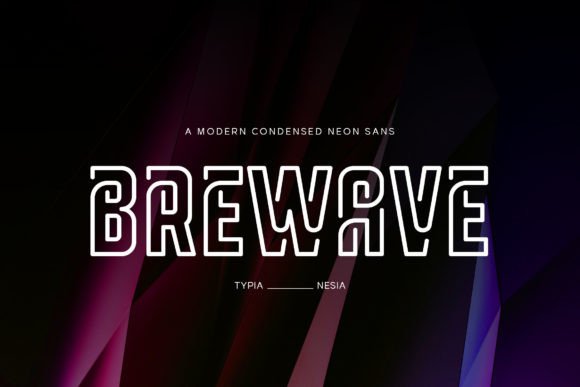
Brewave Font: The Ultimate Techno Outline Font for Modern Design
In the world of digital design, fonts play a crucial role in conveying the tone and personality of a brand or project. With so many fonts available, it can be overwhelming to choose the right one. However, if you’re looking for a font that exudes a futuristic and high-tech vibe, look no further than Brewave Neon. In this article, we’ll explore the features and benefits of Brewave Font and how it can elevate your design projects.
What is Brewave Font?
Brewave Neon is a techno outline font that is perfect for your upcoming projects. Such as logo branding, editorial design, stationery design, sport design, 80s retro design, game industry, music poster, blog design, modern advertising design, card invitation, art quote, home decor, book/cover title, special events, and more. This font is designed to give your designs a modern and edgy look that’s sure to grab attention.
Benefits of Using Brewave Font
There are several benefits to using Brewave Font in your design projects. Here are a few:
- Unique and Modern Design: Brewave Neon has a unique and modern design that’s perfect for brands and projects that want to stand out from the crowd.
- Highly Versatile: This font can be used for a wide range of design projects, from logo branding to editorial design, and from stationery design to game industry projects.
- Easily Readable: Despite its futuristic design, Brewave Neon is easily readable, making it perfect for body text and headlines.
- Customizable: Brewave Neon comes with a range of customization options, allowing you to tailor the font to your specific design needs.
Design Applications of Brewave Font
Brewave Neon is a highly versatile font that can be used for a wide range of design applications. Here are a few examples:
- Logo Branding: Use Brewave Neon to create a modern and edgy logo that stands out from the crowd.
- Editorial Design: Brewave Neon is perfect for editorial design projects, such as magazines, newspapers, and blogs.
- Stationery Design: Use Brewave Neon to create modern and stylish stationery, such as business cards, letterheads, and envelopes.
- Sport Design: Brewave Neon is perfect for sport-related design projects, such as jerseys, stadium signage, and sports equipment.
- 80s Retro Design: Brewave Neon has a retro-futuristic vibe that’s perfect for 80s-inspired design projects.
- Game Industry: Use Brewave Neon to create modern and edgy game titles, logos, and in-game text.
- Music Poster: Brewave Neon is perfect for music posters, flyers, and album covers.
- Blog Design: Use Brewave Neon to create a modern and stylish blog that stands out from the crowd.
- Modern Advertising Design: Brewave Neon is perfect for modern advertising design projects, such as billboards, magazine ads, and social media ads.
Typography and Readability
Brewave Neon has a unique and modern typography that’s designed to be highly readable. The font features:
- Clean Lines: Brewave Neon features clean lines and a minimalist design that’s perfect for modern design projects.
- Geometric Shapes: The font features geometric shapes and a futuristic design that’s perfect for tech-related projects.
- High Contrast: Brewave Neon has a high contrast design that makes it perfect for headlines and body text.
Font Features
Brewave Neon comes with a range of font features that make it perfect for modern design projects. Here are a few:
- Uppercase and Lowercase Letters: Brewave Neon features both uppercase and lowercase letters, making it perfect for body text and headlines.
- Numbers and Punctuation: The font features numbers and punctuation marks, making it perfect for a wide range of design projects.
- Multilingual Support: Brewave Neon supports multiple languages, making it perfect for global design projects.
Why Choose Brewave Font?
There are several reasons why you should choose Brewave Font for your design projects. Here are a few:
- Unique Design: Brewave Neon has a unique and modern design that’s perfect for brands and projects that want to stand out from the crowd.
- Highly Versatile: This font can be used for a wide range of design projects, from logo branding to editorial design, and from stationery design to game industry projects.
- Easily Readable: Despite its futuristic design, Brewave Neon is easily readable, making it perfect for body text and headlines.
- Customizable: Brewave Neon comes with a range of customization options, allowing you to tailor the font to your specific design needs.
In conclusion, Brewave Neon is a highly versatile and modern font that’s perfect for a wide range of design projects. With its unique and futuristic design, easily readable typography, and customization options, Brewave Neon is the perfect choice for brands and projects that want to stand out from the crowd.